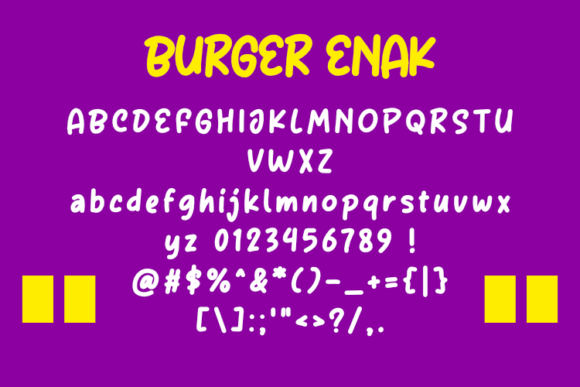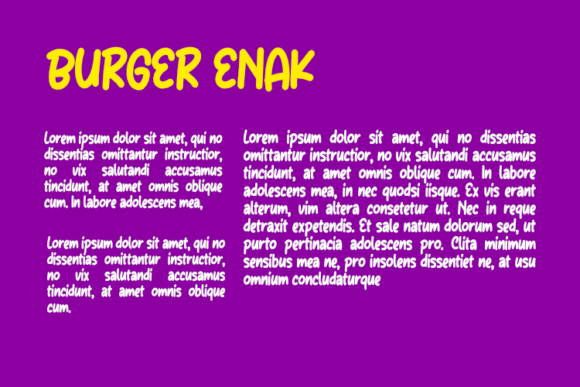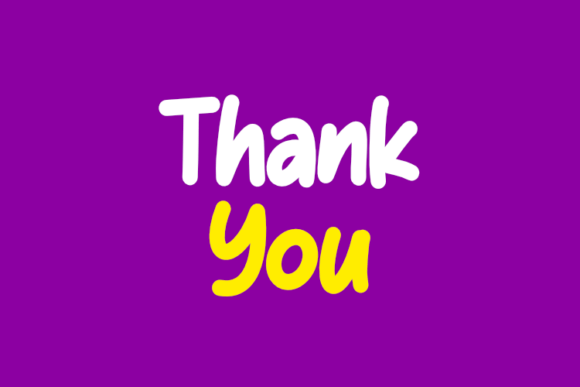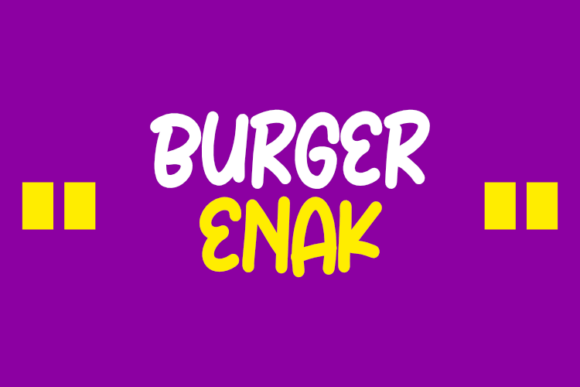
Introducing Burger Enak: The Ultimate Font for Creative Expression
I’ll never forget the frustration of working on a design project, hours pouring over details, and then getting stuck on one thing: finding the perfect font. It was like trying to find a needle in a haystack. My client wanted something bold, yet elegant; something that would make their brand stand out. And then, I stumbled upon Burger Enak. It was like a breath of fresh air! In this article, I’ll share my experience with Burger Enak, a versatile font that brilliantly fuses style and functionality.
A Personal Review: What I Love and What I Think Could Be Improved
What I Love About Burger Enak ✨
- 💯 Universal Compatibility: Burger Enak works flawlessly with all design tools and software, making it a go-to font for any project.
- 🎨 Stylistic Alternates: The font comes with a range of stylistic alternates, allowing you to experiment with different looks and feels.
- 👍 Ease of Use: Burger Enak is incredibly easy to use, even for those who are new to design.
While Burger Enak is an excellent font, there are a few minor limitations to consider:
- 🤔 Limited Language Support: Burger Enak primarily supports Latin-based languages, which might be a limitation for some designers.
- ⚠️ Not Suitable for Body Text: Due to its bold and stylized nature, Burger Enak might not be the best choice for body text or long-form content.
Burger Enak was designed with the goal of creating a font that is both stylish and functional. The designer, inspired by the world of food and culinary delights, aimed to create a font that would evoke the feeling of a juicy burger on a sunny day. With Burger Enak, you get a font that is not just a collection of letters, but a way to tell a story and create a lasting impression.
Q: Is Burger Enak suitable for body text?
A: While Burger Enak is an excellent font, it’s not recommended for body text due to its bold and stylized nature. Instead, use it for headlines, titles, and short-form content.